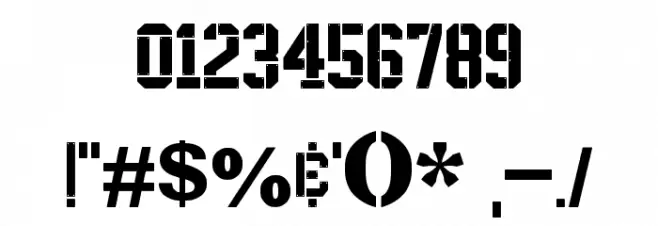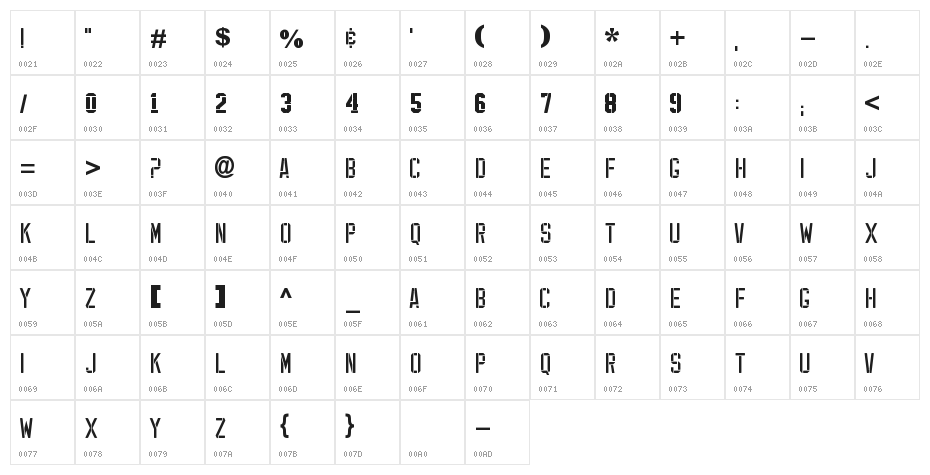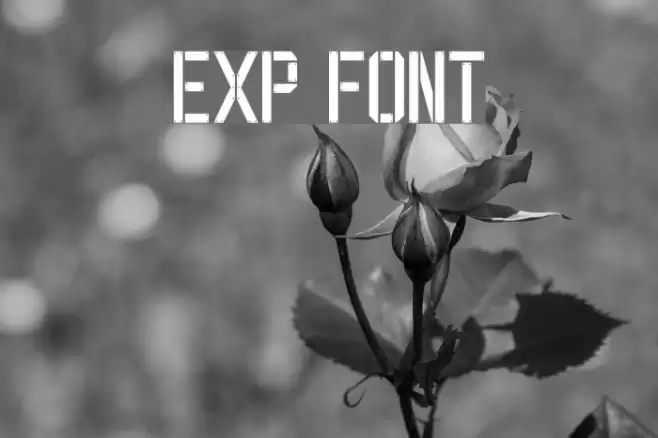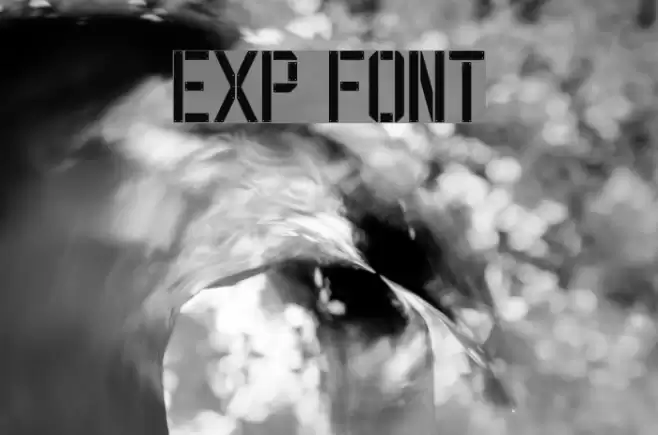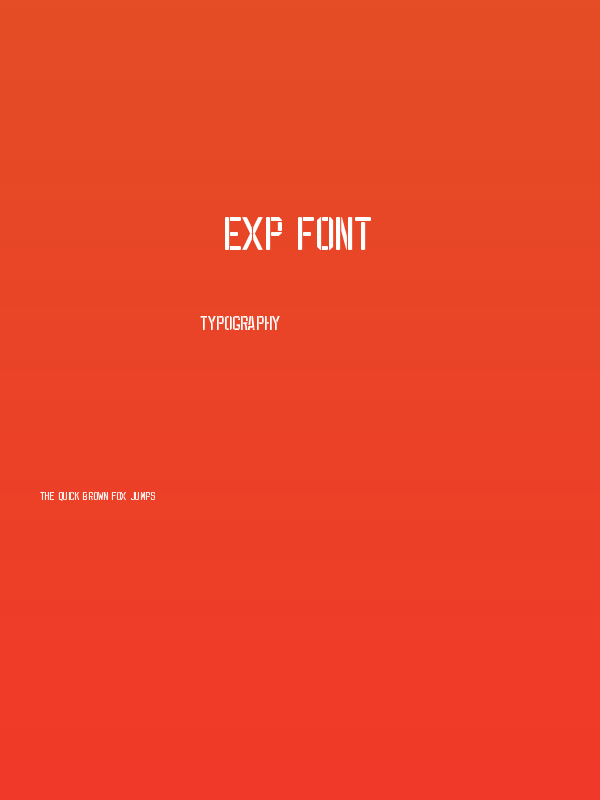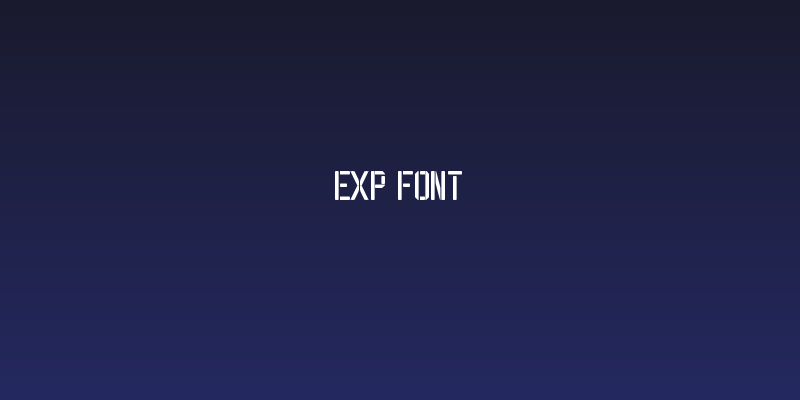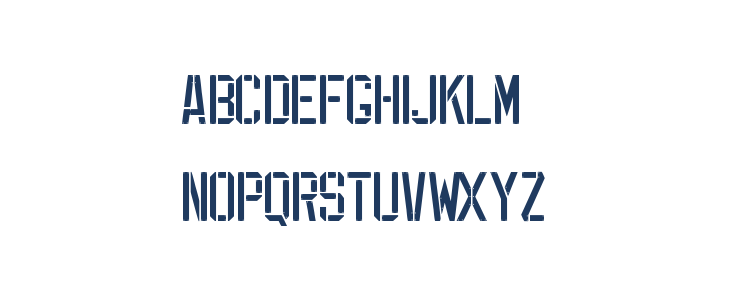
EXP FONT Font
EXP FONT Description
This font features a bold, geometric design with a stencil-like appearance. The characters are constructed with sharp angles and straight lines, creating a modern and industrial feel. The uppercase letters are uniform in height, while the numerals and special characters maintain the same boldness and angularity. The font's distinct cut-out sections give it a unique, edgy look, making it stand out in any design. Its structured form and high contrast between the thick strokes and the negative space make it highly legible and impactful.